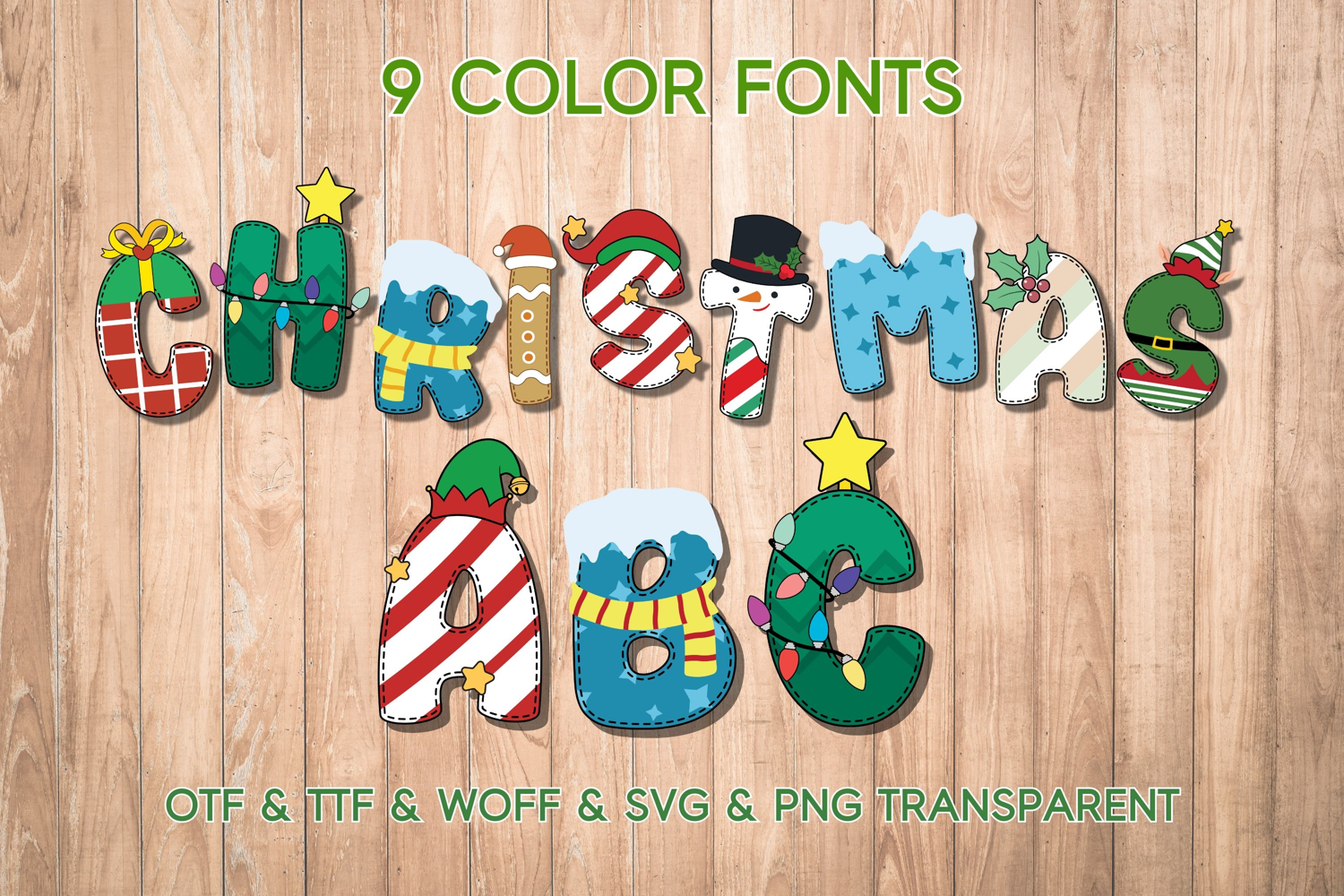
Christmas ABC - 9 Color Fonts
Cute Christmas is a fun and cheerful color font. It will look fantastic on all your projects including t-shirt designs, mugs, crafts, cards, stickers, and more!
Cute Christmas included:
✅Snow cap and scarf
✅Chirstmas gift box
✅Gingerbread cookie
✅Christmas tree
✅Cool snowman
✅Holly berries
✅Snow cap
✅Elfin Elf
✅Candy cane Elf